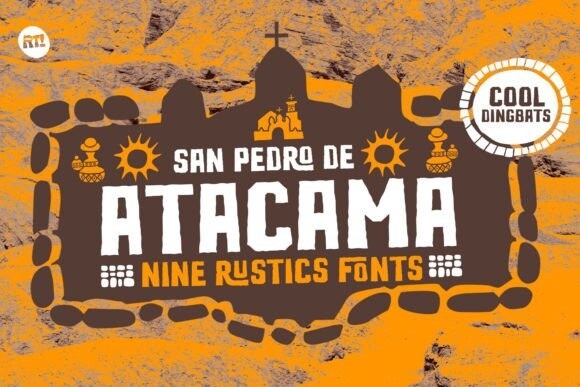
San Pedro De Atacama Font
San Pedro De Atacama Font – On a trip to San Pedro de Atacama in the north of Chile, I found many elements that inspired me to generate a bundle that had icons, textures, fonts, etc., so upon returning to Santiago I began to sketch the idea, the Dingbats contains from linear to filled and with textures.